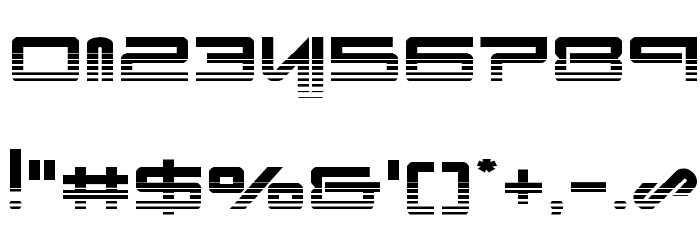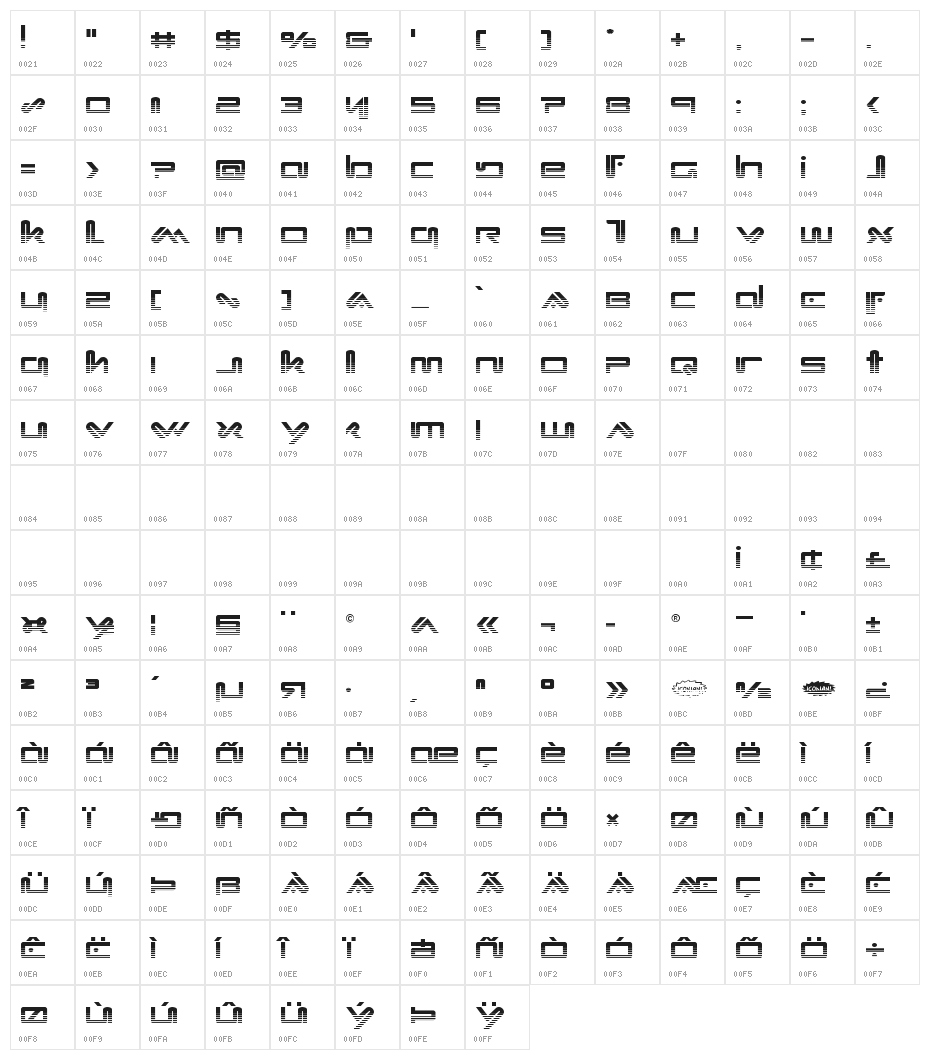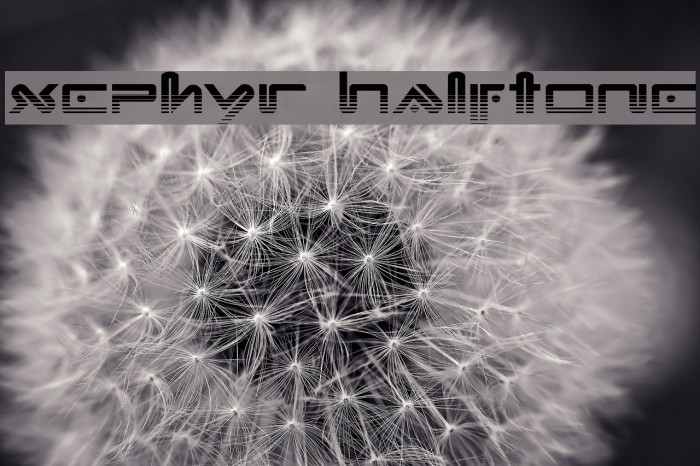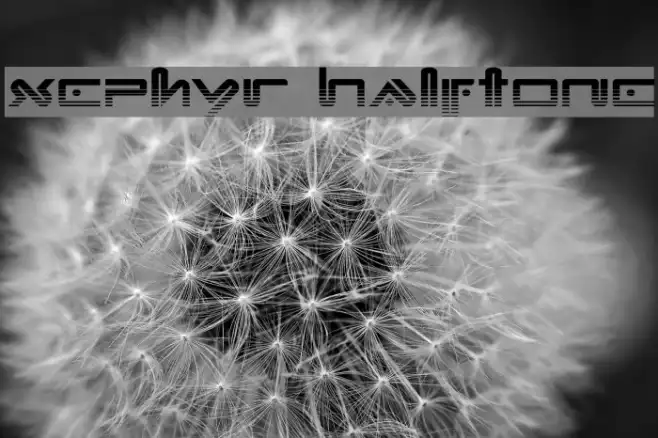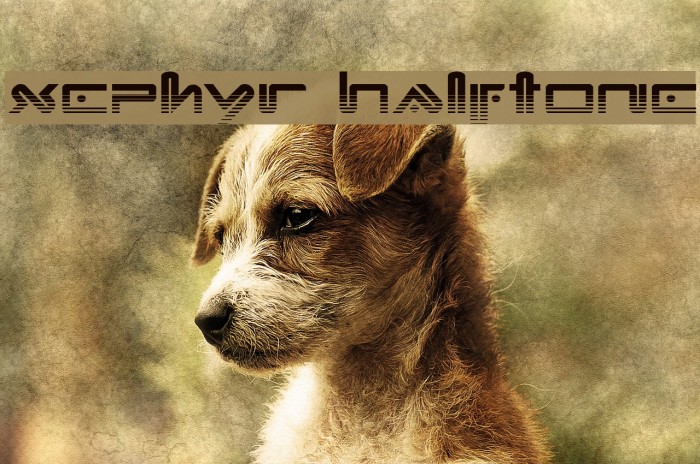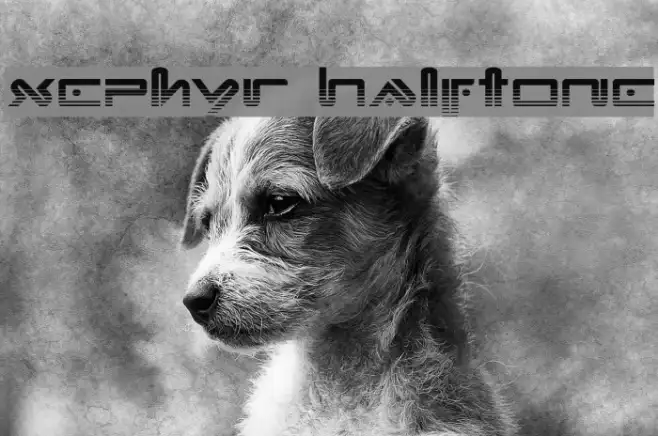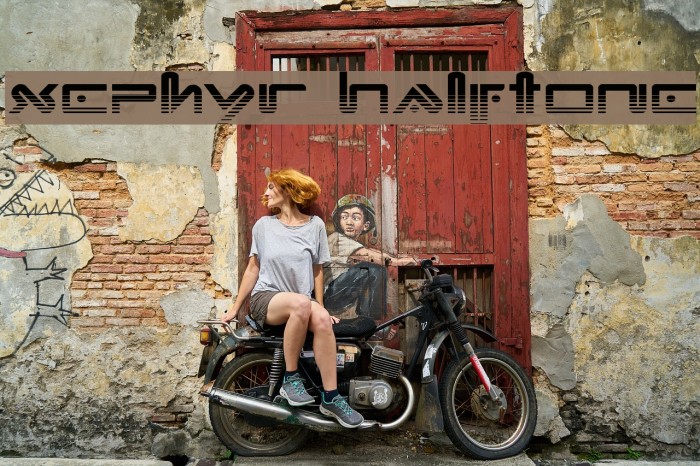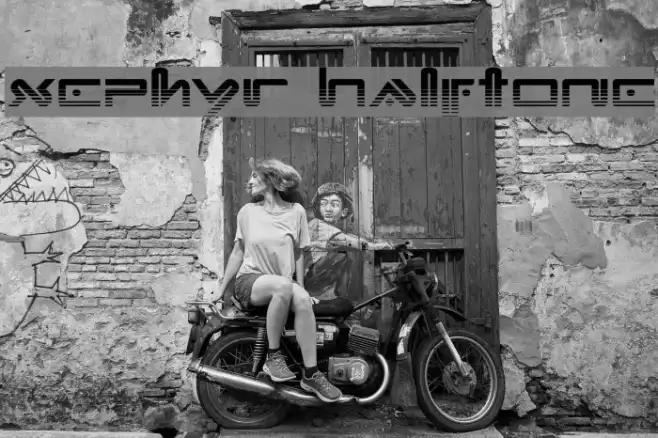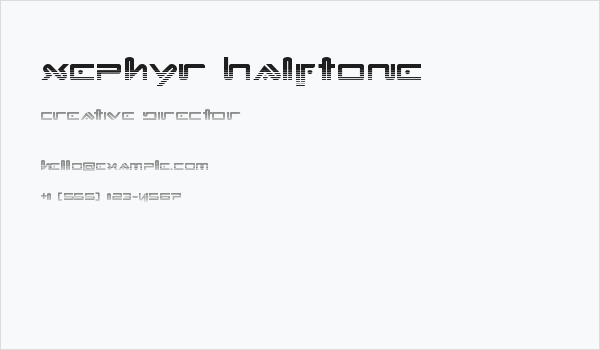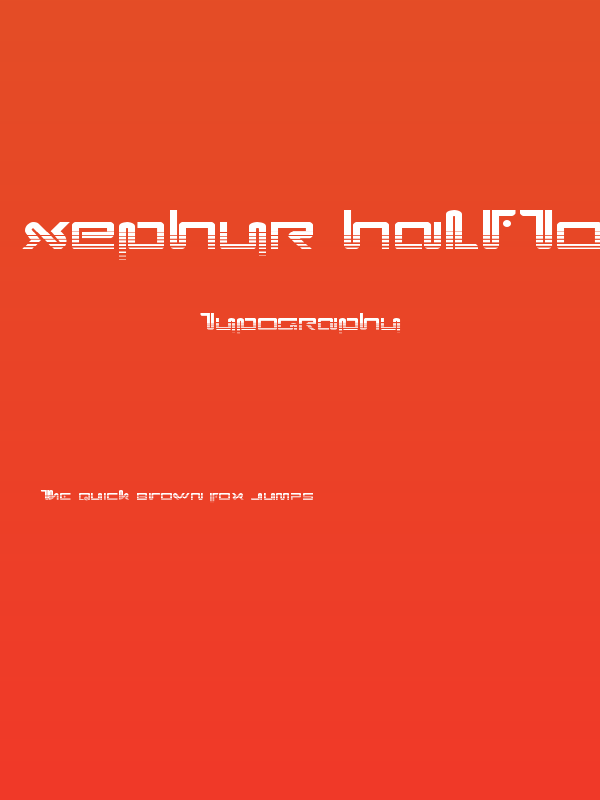
Xephyr Halftone Font
Xephyr Halftone Description
This font features a unique halftone design with a futuristic and digital aesthetic. Each character is composed of horizontal lines that create a sense of movement and rhythm. The uppercase and lowercase letters maintain a consistent style, with sharp angles and geometric shapes. The numerals and special characters follow the same design principles, ensuring a cohesive look. This font is ideal for projects that require a modern and tech-inspired appearance, offering a distinctive visual impact.
| Proposed Projects | Ideal for digital art, tech branding, sci-fi themed projects, and modern posters. |